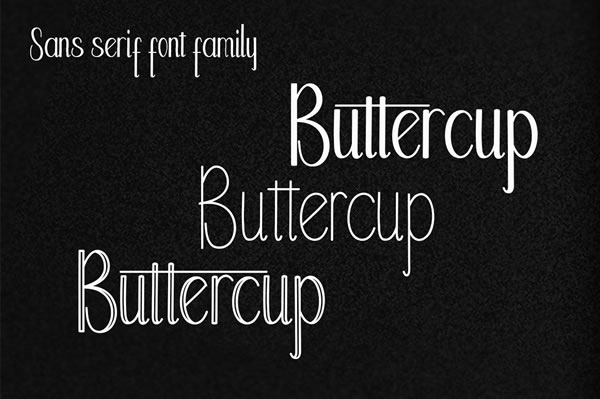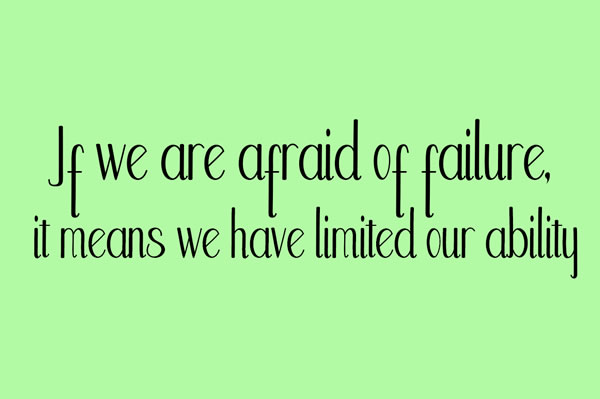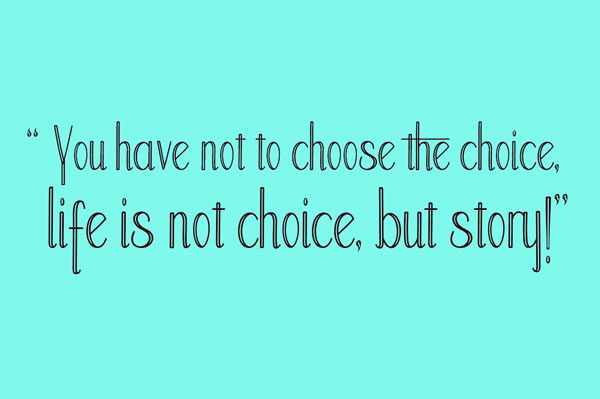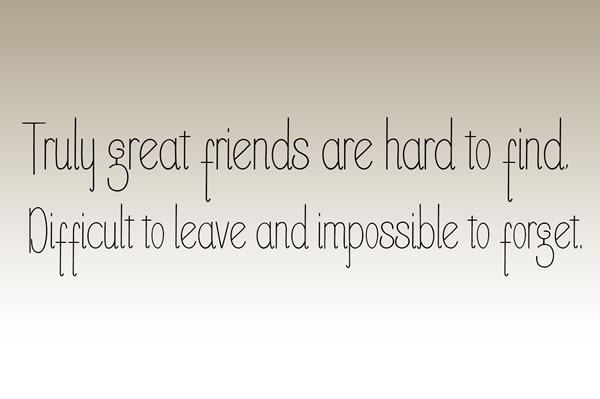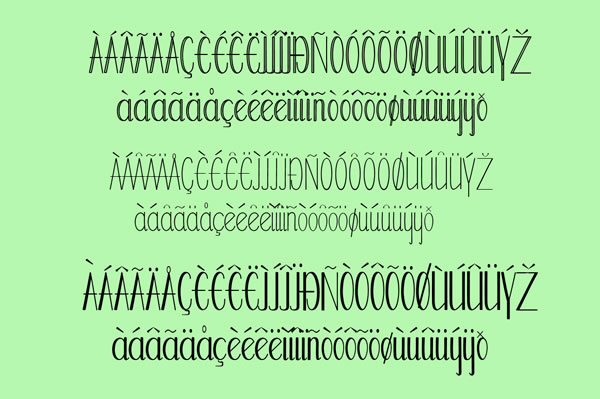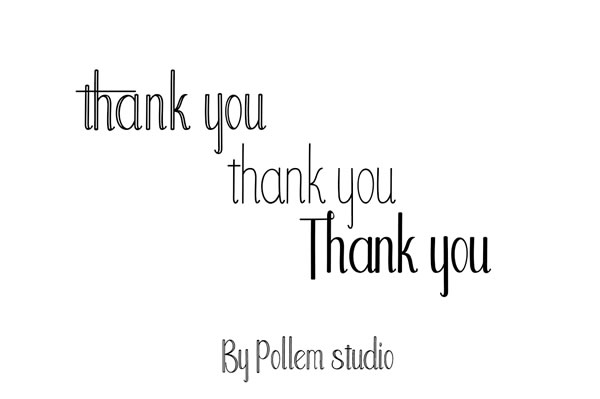
Discovering the Delight of the Buttercup Font
Have you ever been in the midst of a creative project, pouring your heart and soul into every detail, only to feel like something’s missing? That’s exactly where I was when I stumbled upon the charming Buttercup Font family. As a designer, I’m always on the lookout for the perfect font to elevate my work, and Buttercup did just that.
Buttercup is a small yet mighty Sans Serif font family, consisting of three styles: Buttercup, Buttercup 1, and Buttercup Line. Its purpose is to provide a clean, modern look that’s perfect for various design projects, from digital interfaces to print materials. What makes Buttercup truly valuable for designers like me is its versatility and unique character – it adds a touch of warmth and personality to any design, making it stand out from the crowd.
Key Features of Buttercup Font
- Font Family: Buttercup is a sans-serif font family.
- Size: The font family includes 12 font weights, ranging from Light to Black.
- Unique Characteristics: Features a friendly, approachable feel with a subtle rounded edge, making it suitable for body text and headings in a variety of contexts.
Designer Review: Buttercup Font
I recently had the chance to work with the Buttercup Font, and I must say it’s a delightful addition to any design project. ✨ The font’s playful, whimsical feel makes it perfect for creating a lighthearted, youthful atmosphere. The rounded edges and subtle curves add a touch of warmth and approachability that’s hard to resist.
One of the things I appreciate most about Buttercup is its versatility. ✨ It comes in a range of weights, from light to bold, making it easy to use in a variety of contexts, from headings to body text. The font also supports multiple languages, which is a huge plus for designers working on international projects.
- ⚠️ The font can feel a bit too playful for more formal or serious designs. While it’s perfect for children’s books or social media graphics, it may not be the best choice for a corporate website or business report.
- ⚠️ The font’s rounded edges can sometimes make it difficult to read, especially in smaller sizes or for users with vision impairments.
Overall, I think Buttercup is a great addition to any designer’s toolkit. While it may have some limitations, its unique charm and versatility make it a valuable asset for any project that needs a playful, approachable vibe.
Use the Buttercup Font for:
– Creating whimsical and playful designs
– Adding a touch of elegance to your graphics and documents
– Creating custom invitations, cards, and party decorations
– Designing children’s books and educational materials
For the best results, pair the Buttercup Font with bold, bright colors and playful graphics.